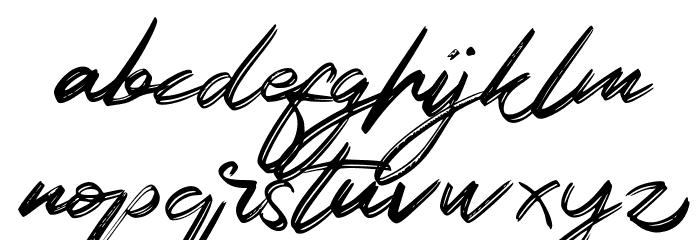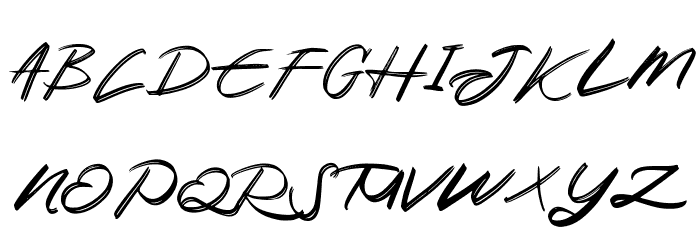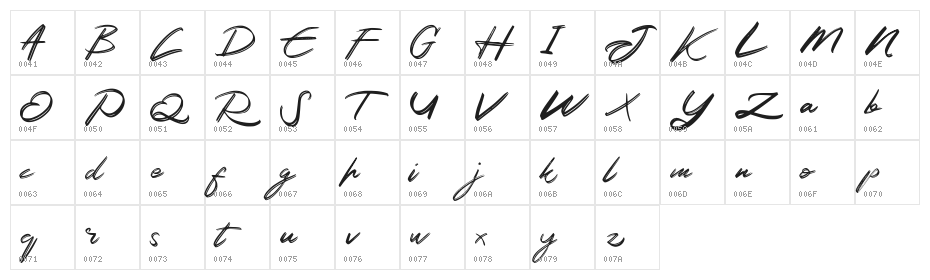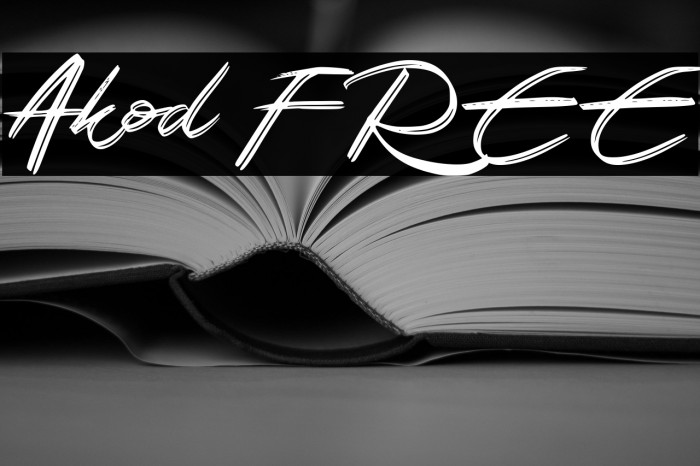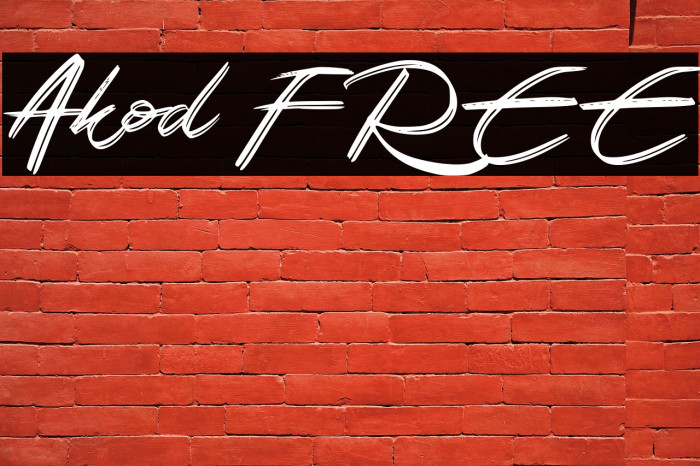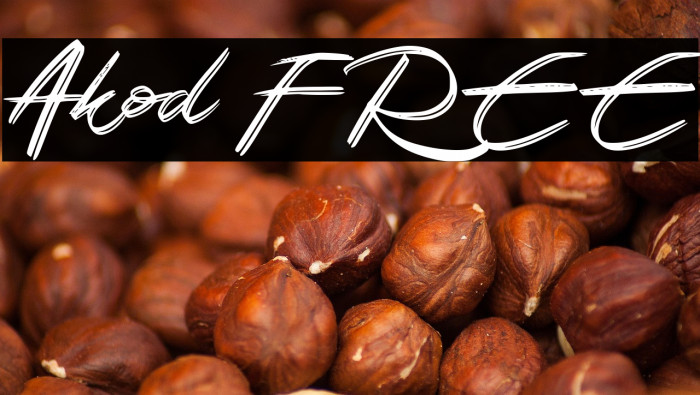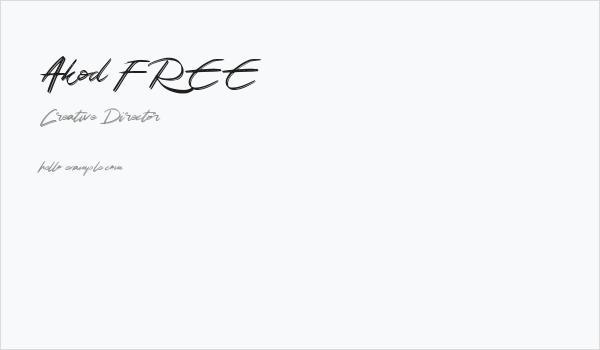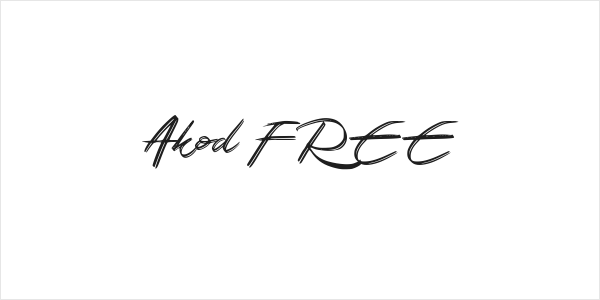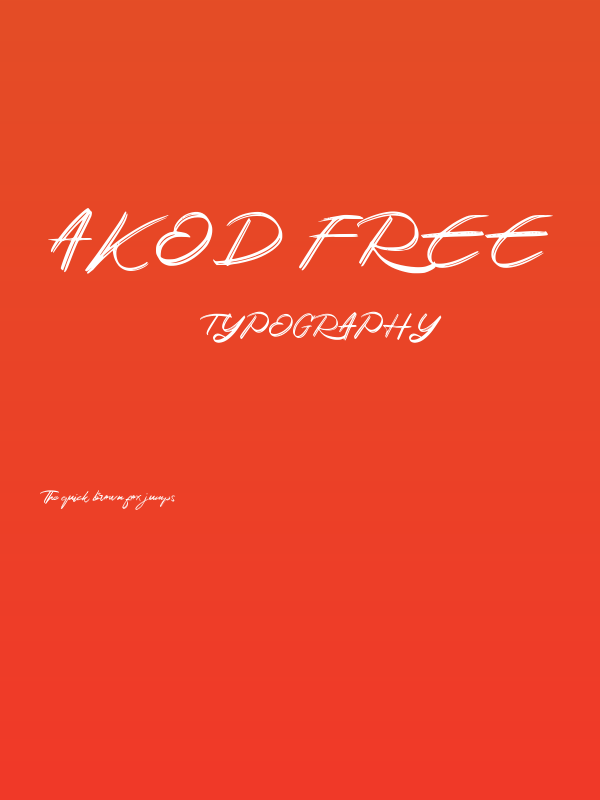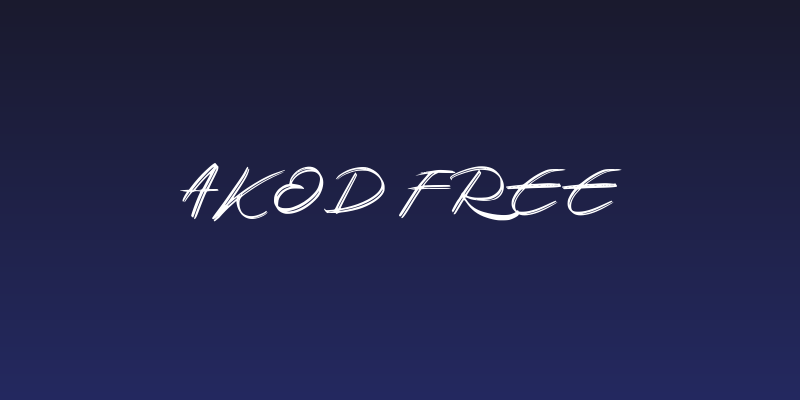
Akod FREE Font
This font features a dynamic and expressive script style, characterized by its fluid, handwritten appearance. The strokes are bold and energetic, with a slight slant that adds a sense of movement and elegance. The uppercase letters are distinct, with a playful yet sophisticated flair, while the lowercase letters maintain a consistent flow, enhancing readability. The font includes a full set of characters, including numbers and special symbols, making it versatile for various design needs. Its artistic nature makes it suitable for creative projects that require a personal touch.
A bold, expressive script font with a dynamic, handwritten style.
- Proposed Projects: Ideal for branding, invitations, greeting cards, and artistic projects that require a personal and creative touch.
- Use Case: Logos, Headlines, Invitations